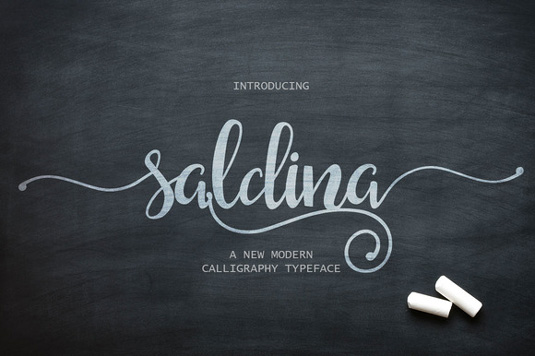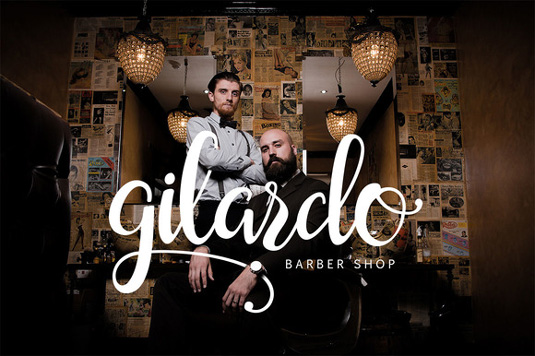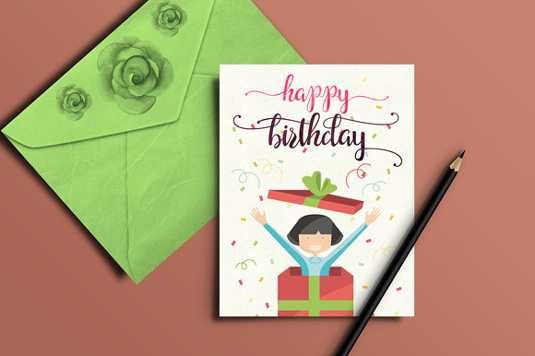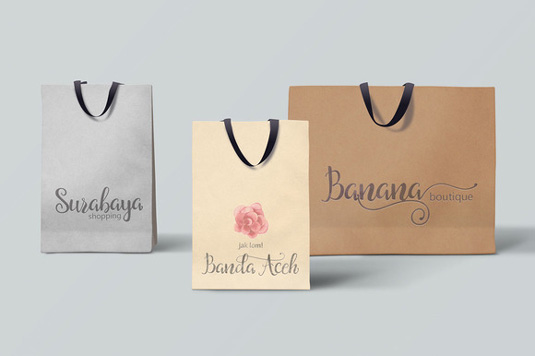
Font of the day: Saldina
Saldina by Akmal van Roem
Today's typeface of choice is modern calligraphy font Saldina, by graphic designer Akmal van Roem. A script font that combines brush lettering with traditional handwriting, Saldina is multipurpose and flexible, make it easy to match with other typefaces to create beautiful designs.